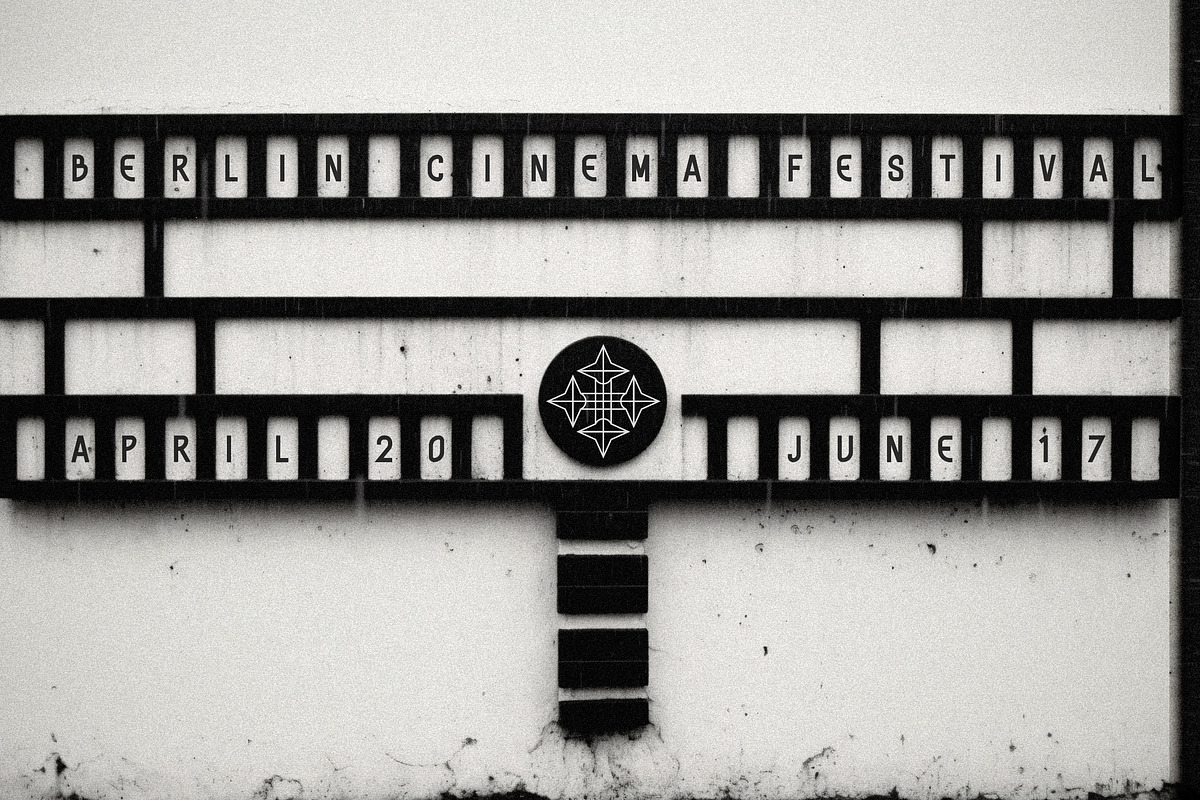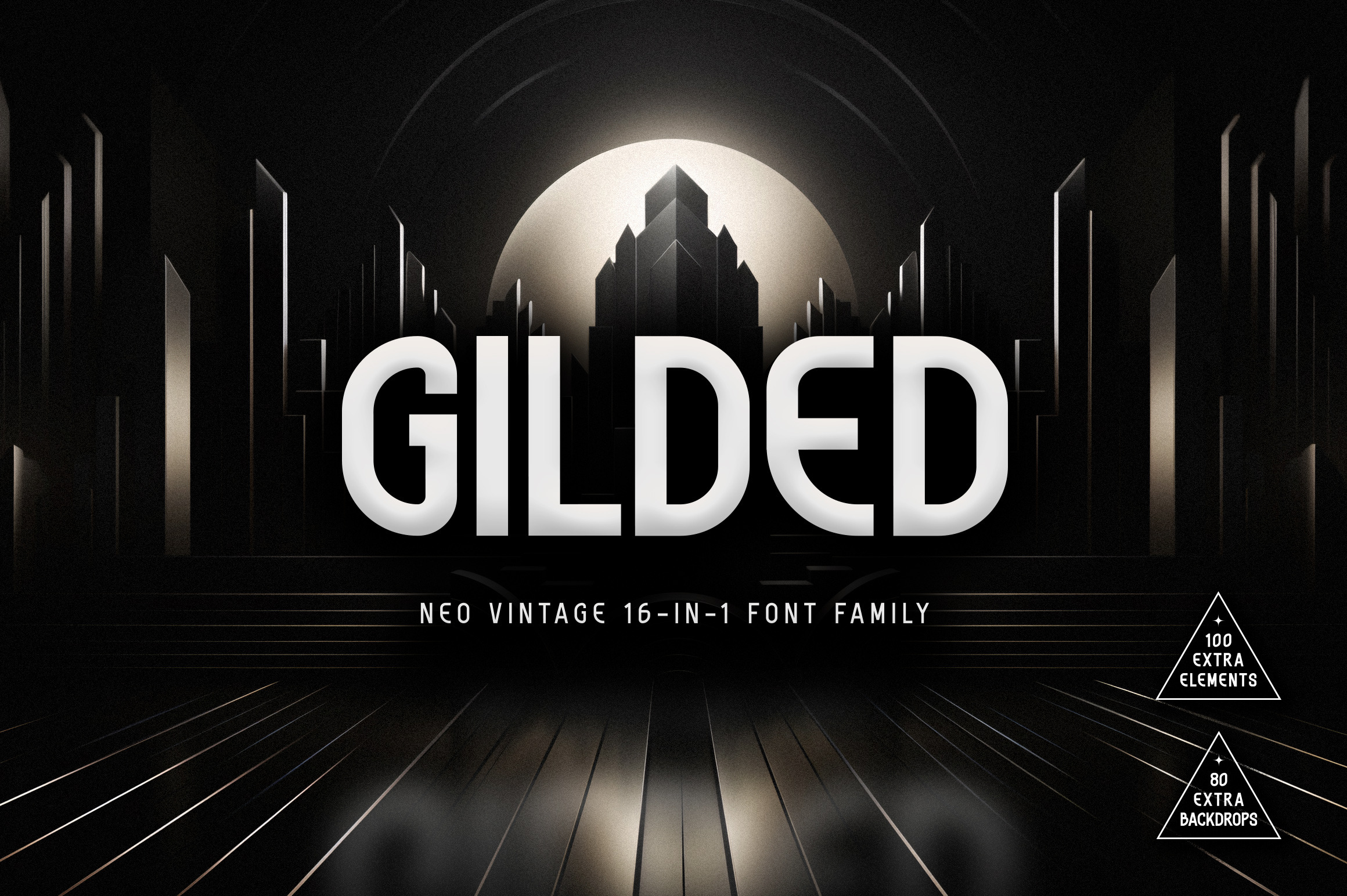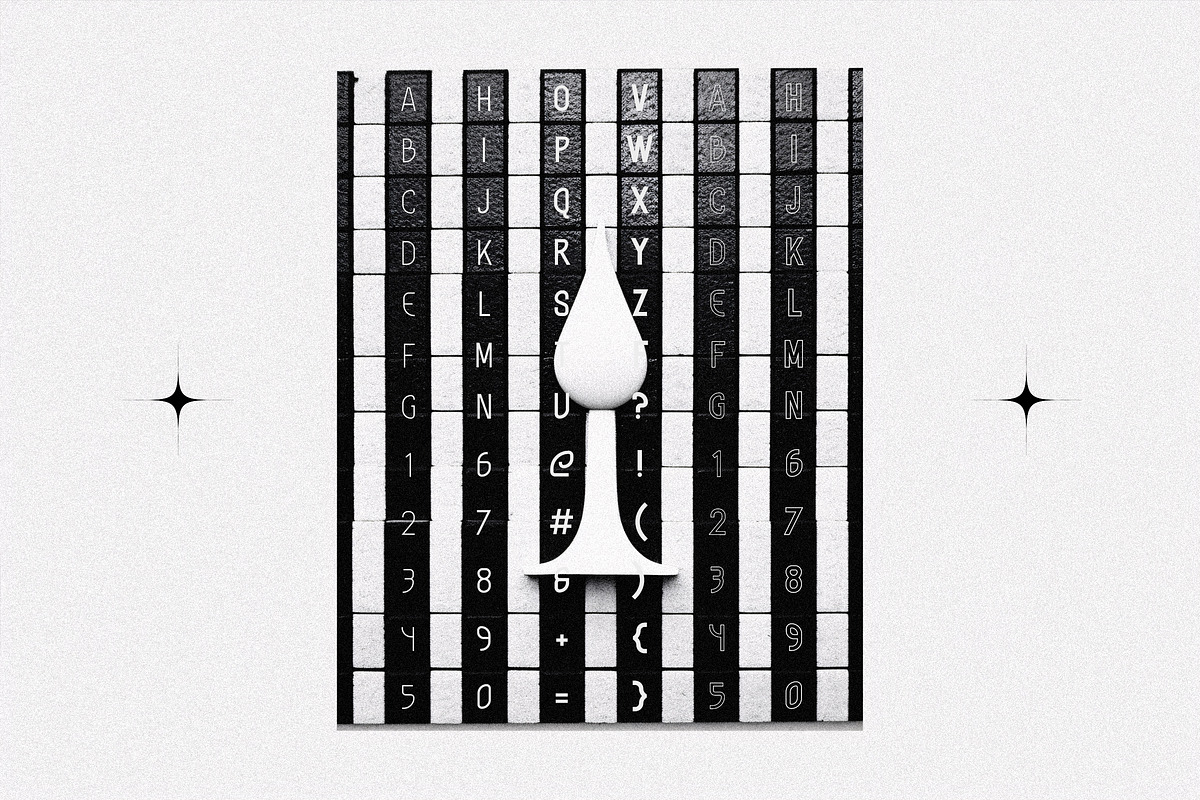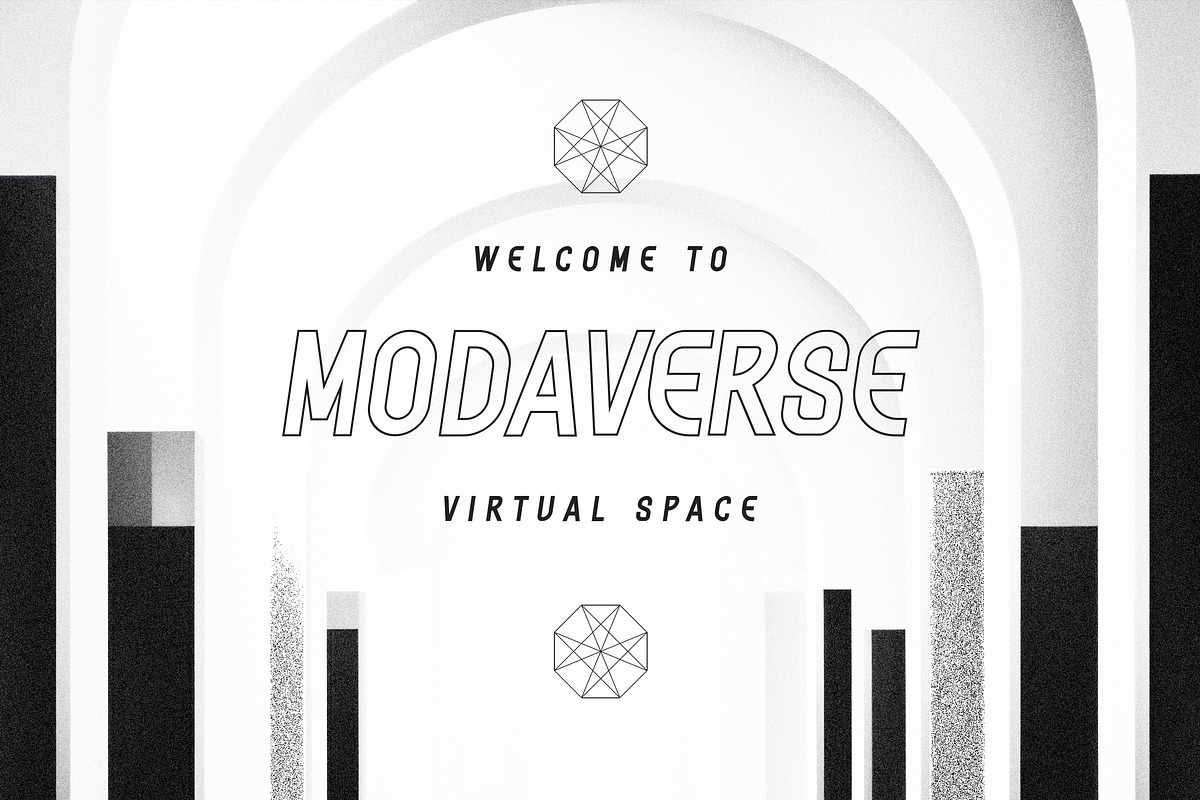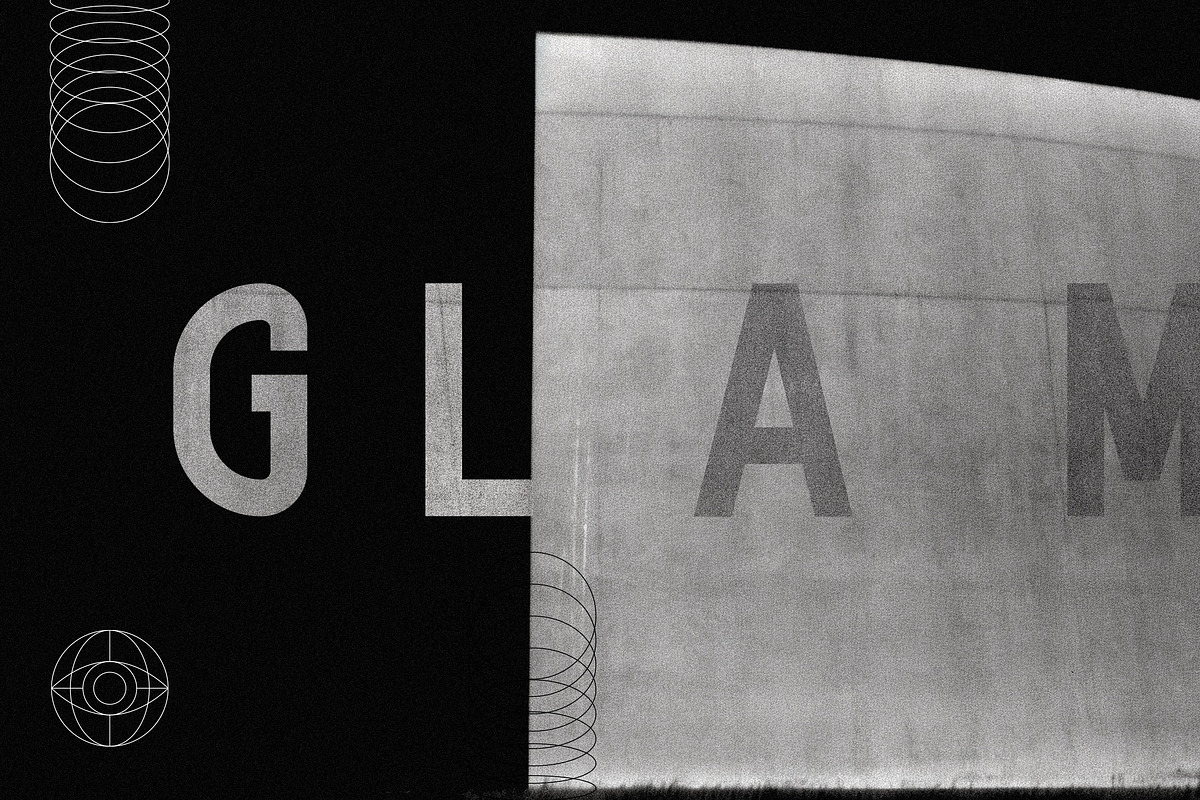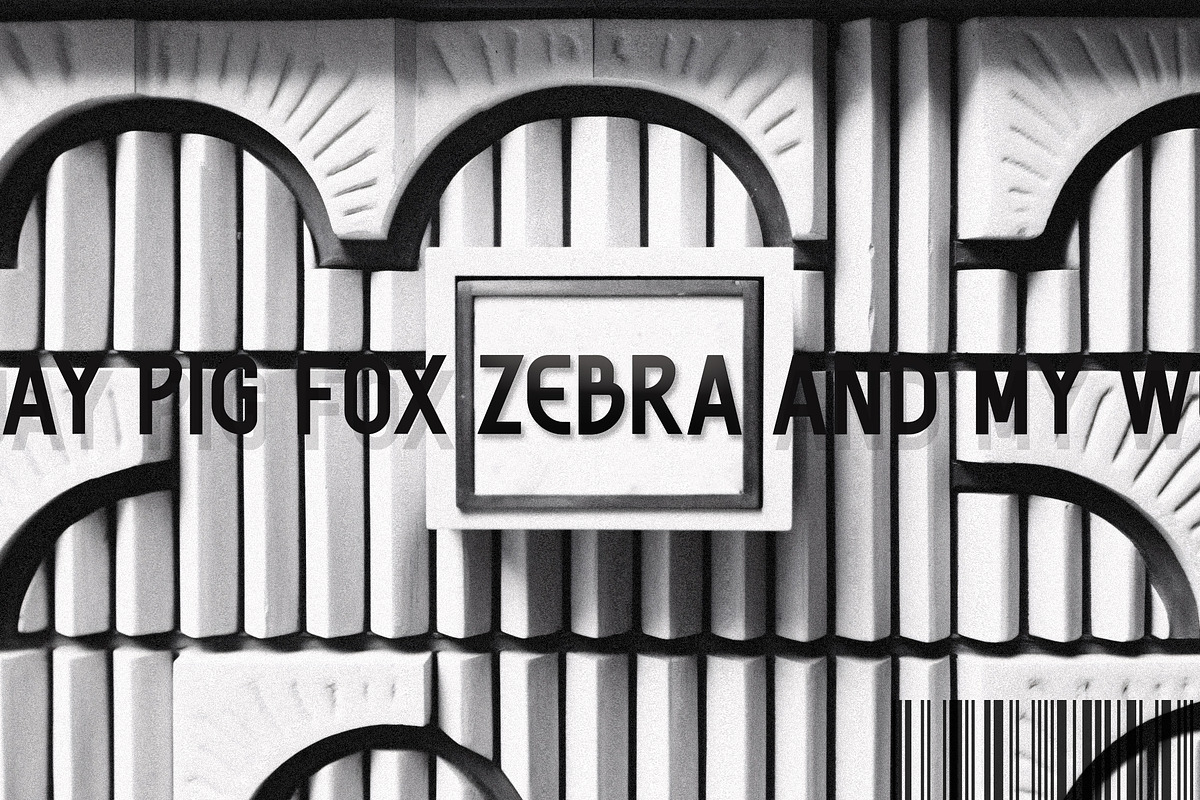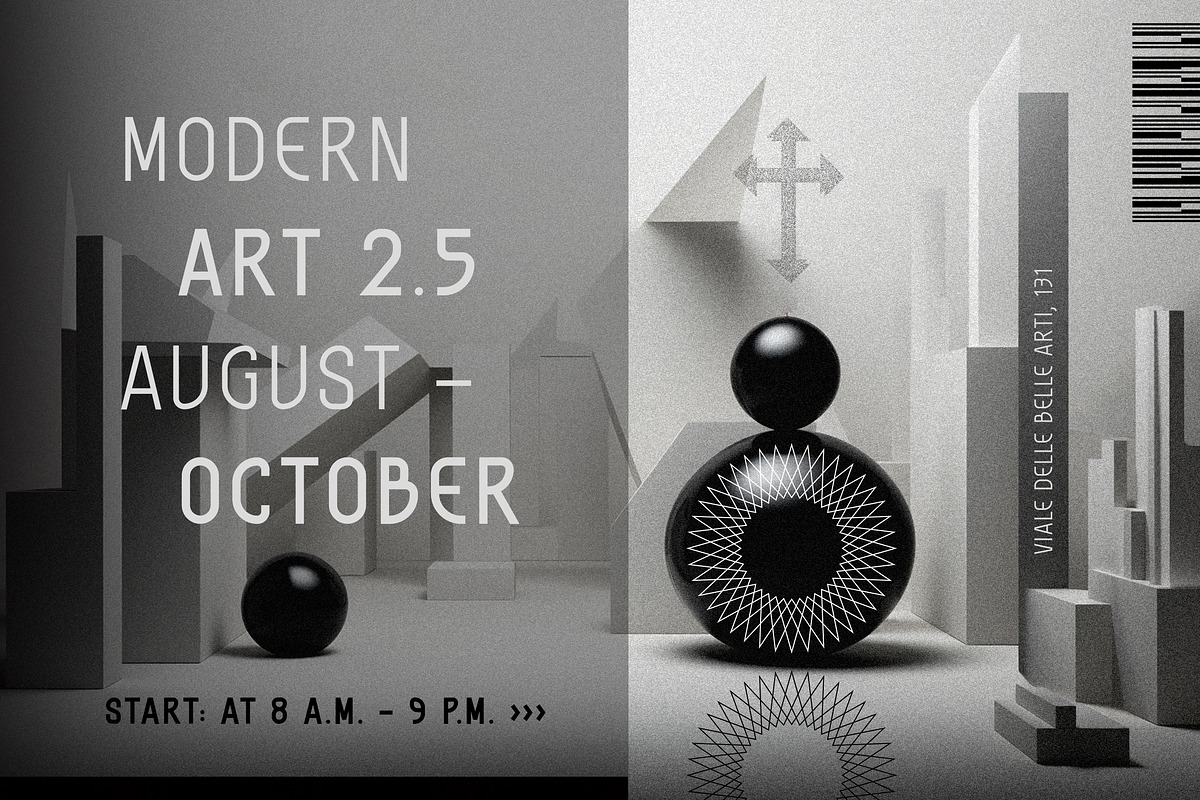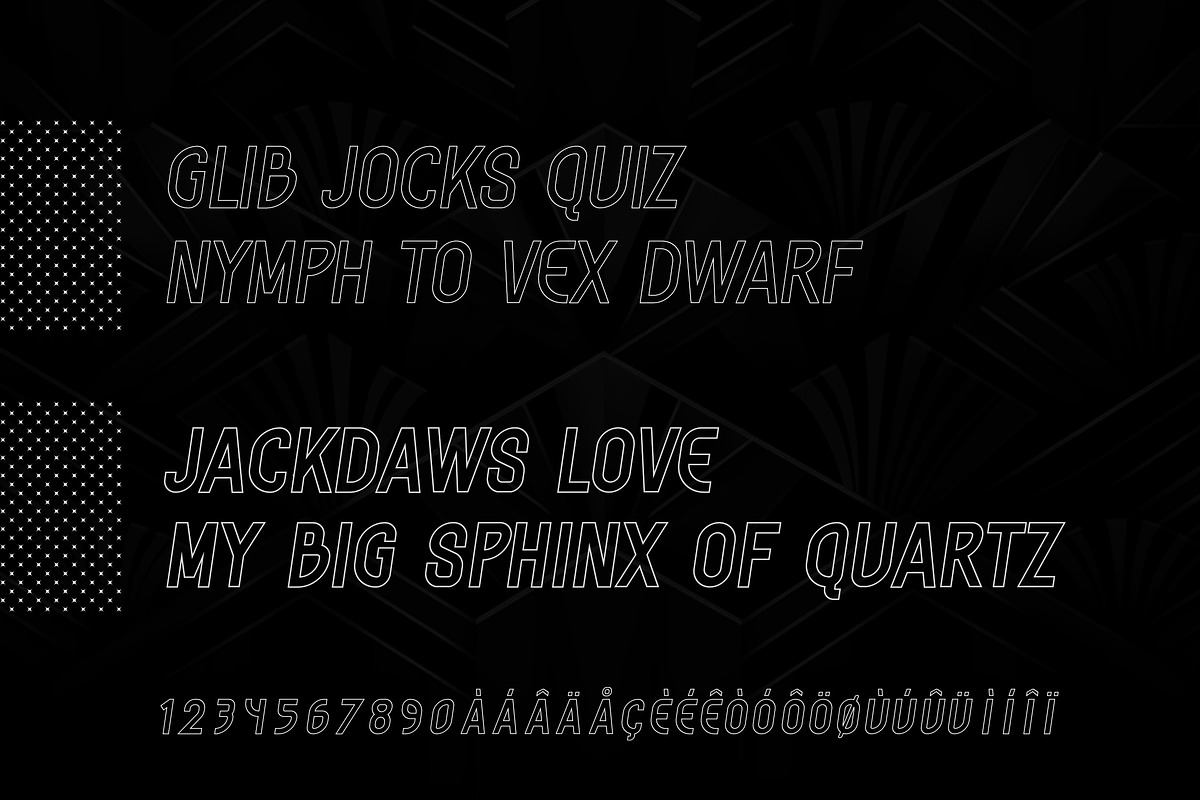
GILDED | Neo Vintage 16-Font Family
Introducing GILDED | Neo Vintage 16-Font Family: A Harmonious Fusion of Art Deco Elegance and Contemporary Chic
Step into a world where timeless sophistication meets modern flair with GILDED, a stunning 16-font family that effortlessly marries the opulence of Art Deco design with the fresh vibrancy of today's trends.
Art Deco Aesthetics Reimagined: GILDED draws inspiration from the Art Deco era, known for its lavish ornamentation, geometric shapes, and unparalleled luxury. Yet, it's not just a revival; it's a reinvention. These fonts encapsulate the essence of Art Deco, capturing the spirit of opulence while introducing a contemporary twist that's perfect for today's design landscape.
Neo Vintage Charm: GILDED embraces the vintage charm of the past and blends it seamlessly with a neo-modern sensibility. Whether you're designing invitations, branding materials, signage, or digital graphics, these fonts bring an irresistible fusion of the old and the new, creating an alluring and captivating visual experience.